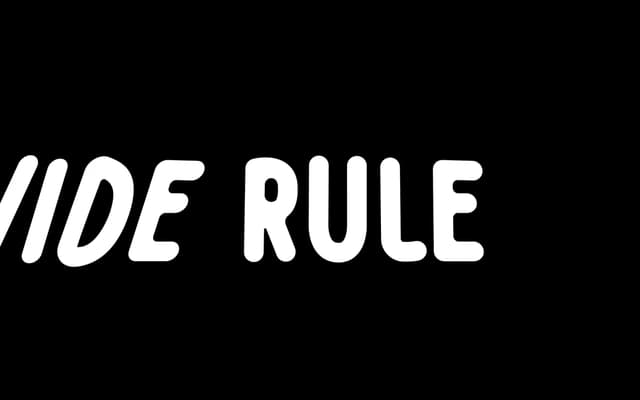
Wide Rule
A casual hand-rendered typeface evoking the scrawled notes and doodles of a school notebook, offered in regular and italic styles.
Drawn to mimic the informal lettering of classroom note-taking and margin doodles, Wide Rule carries the uneven rhythm and personality of genuine handwriting. The family comes in two styles, regular and italic, and the foundry suggests it works particularly well at small sizes for support copy and short passages. Latin diacritical characters have since been added, broadening its language support.
Hand-rendered letterforms imitating classroom note-taking and doodles place this firmly in the casual handwritten script category, with no formal calligraphic structure.